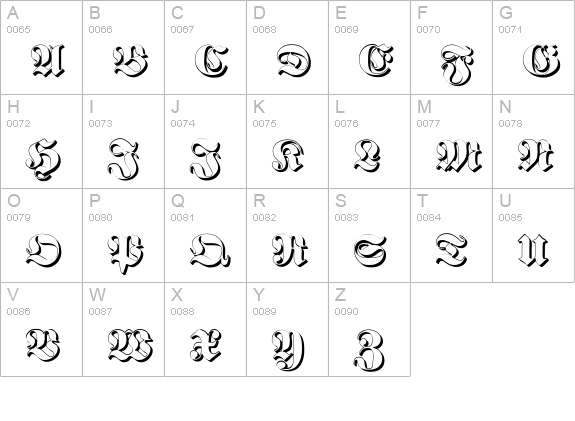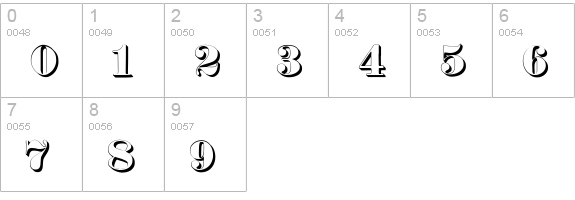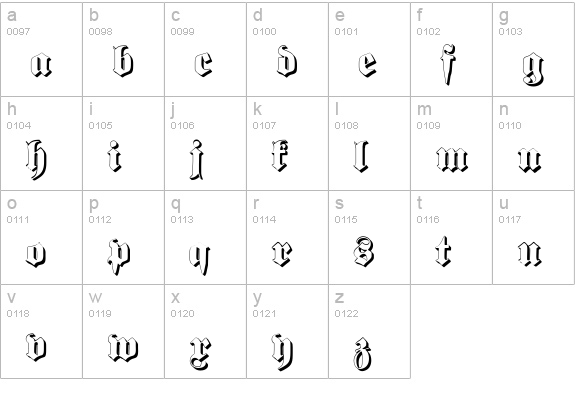
Proclamate Embossed Heavy is a heavy, high-impact variant in the Proclamate typeface family \xE2\x80\x94 well suited to high-impact headlines, posters, and display advertising.
Proclamate Embossed Heavy font is a bold and striking typeface that exudes confidence and elegance. Its embossed detailing adds a touch of sophistication to any design project, making it perfect for headlines, logos, and branding materials. The sturdy and commanding presence of this font is sure to captivate the attention of viewers. What makes this font even more appealing is that it is available for free download at FontsMarket.com. You can easily enhance your designs with Proclamate Embossed Heavy font without any cost, making it a valuable addition to your font collection. Don't miss out on the opportunity to elevate your projects with this eye-catching and versatile typeface.